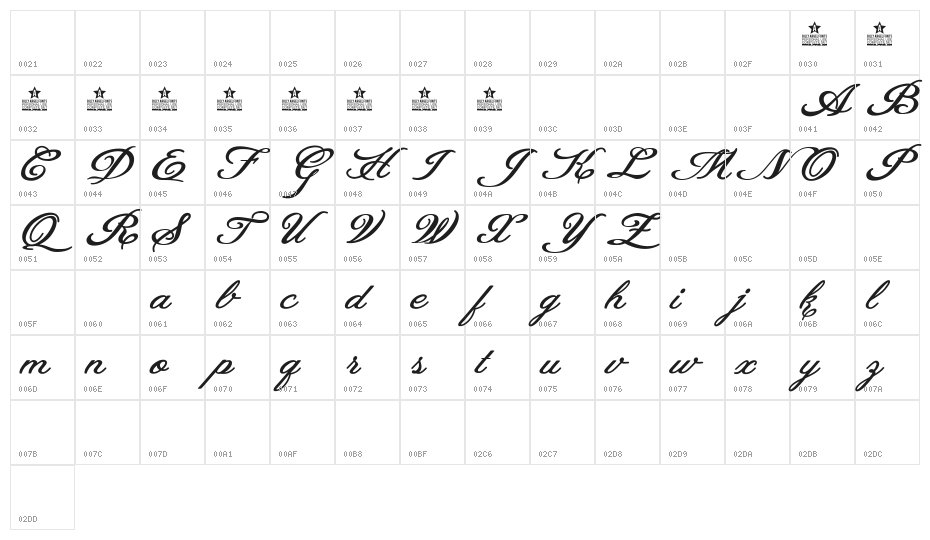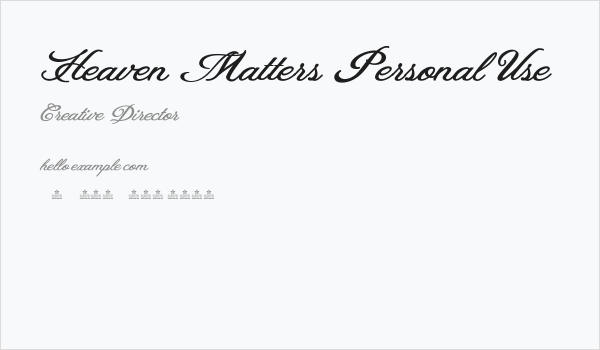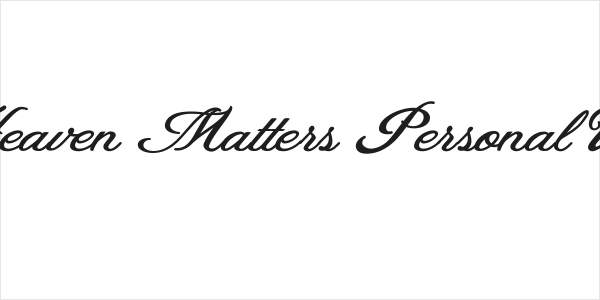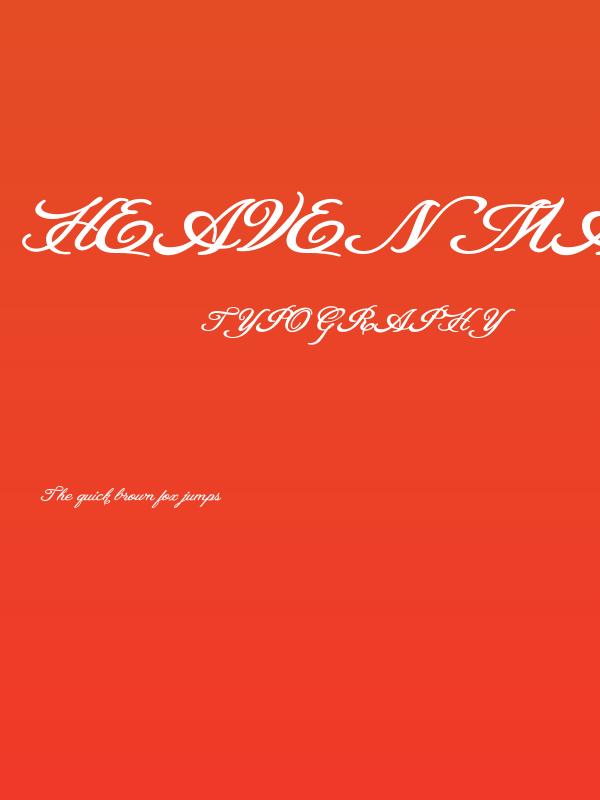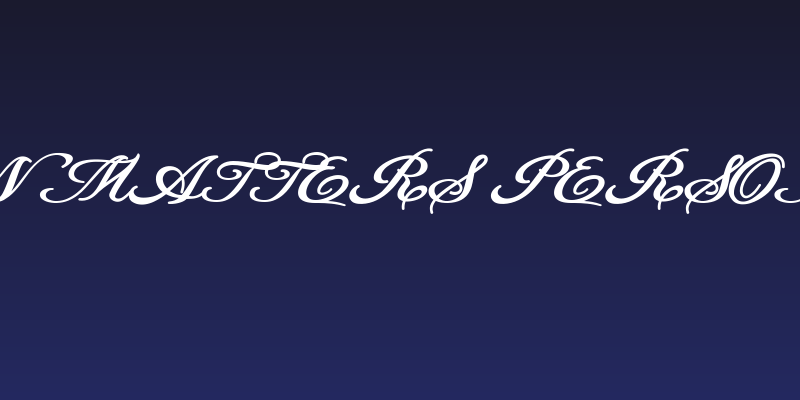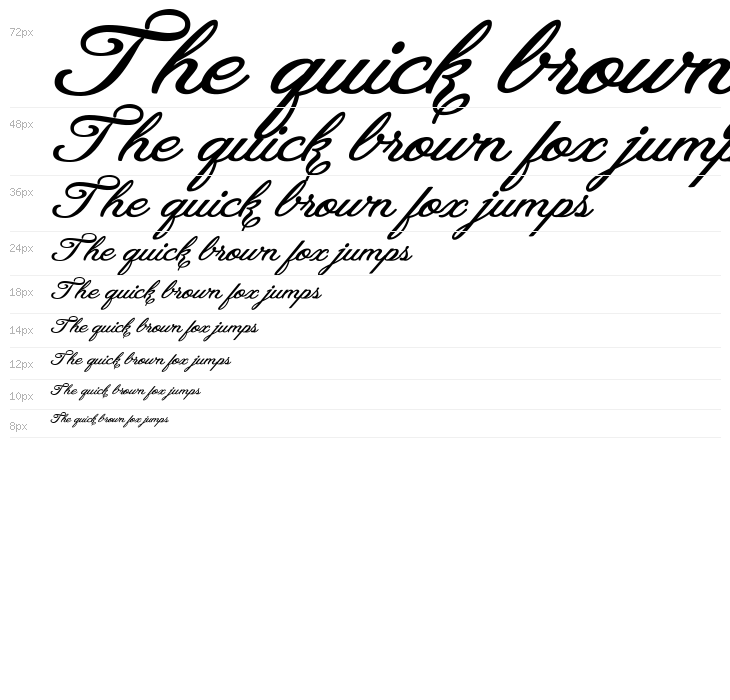
Heaven Matters Personal Use Font
Heaven Matters Personal Use Description
This elegant script font features a flowing, cursive style with intricate loops and swashes, giving it a sophisticated and artistic appearance. The uppercase letters are ornate, with elaborate flourishes that enhance their decorative appeal. The lowercase letters maintain a consistent flow, connecting seamlessly for a smooth, continuous look. The font's design is reminiscent of classic calligraphy, making it ideal for projects that require a touch of elegance and refinement. Its high contrast in stroke thickness adds to its readability and visual interest, while the character spacing is tight, allowing for a compact yet legible presentation.